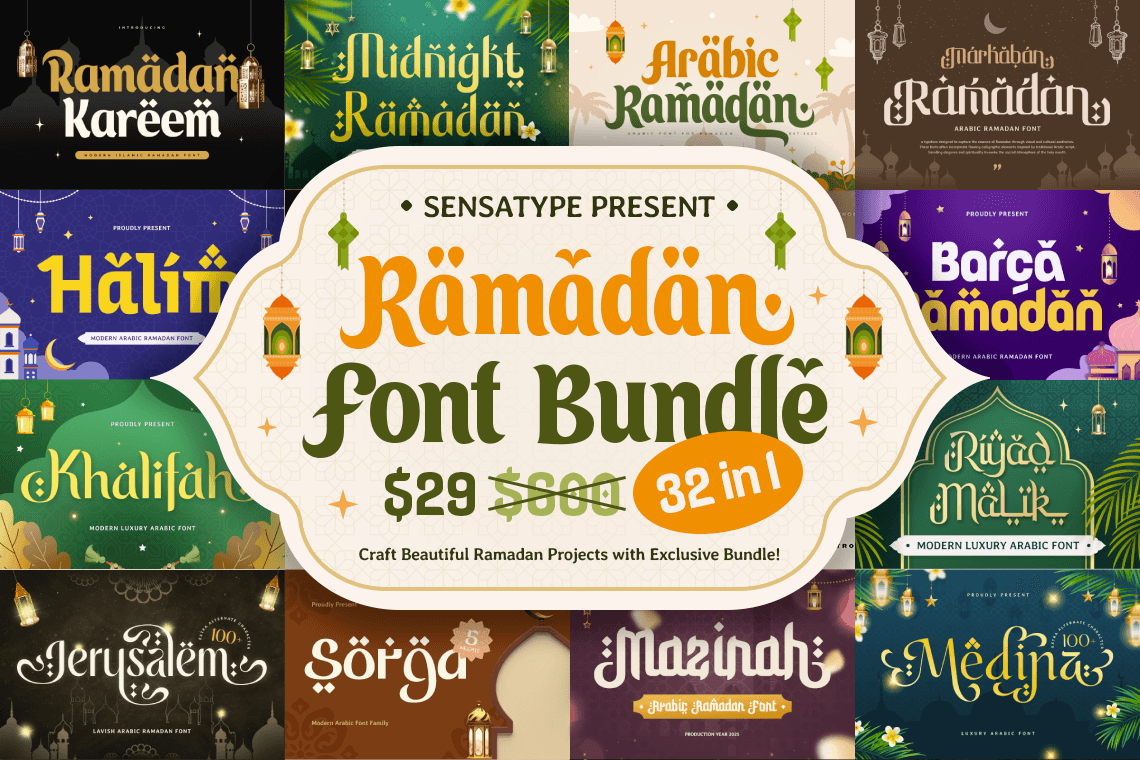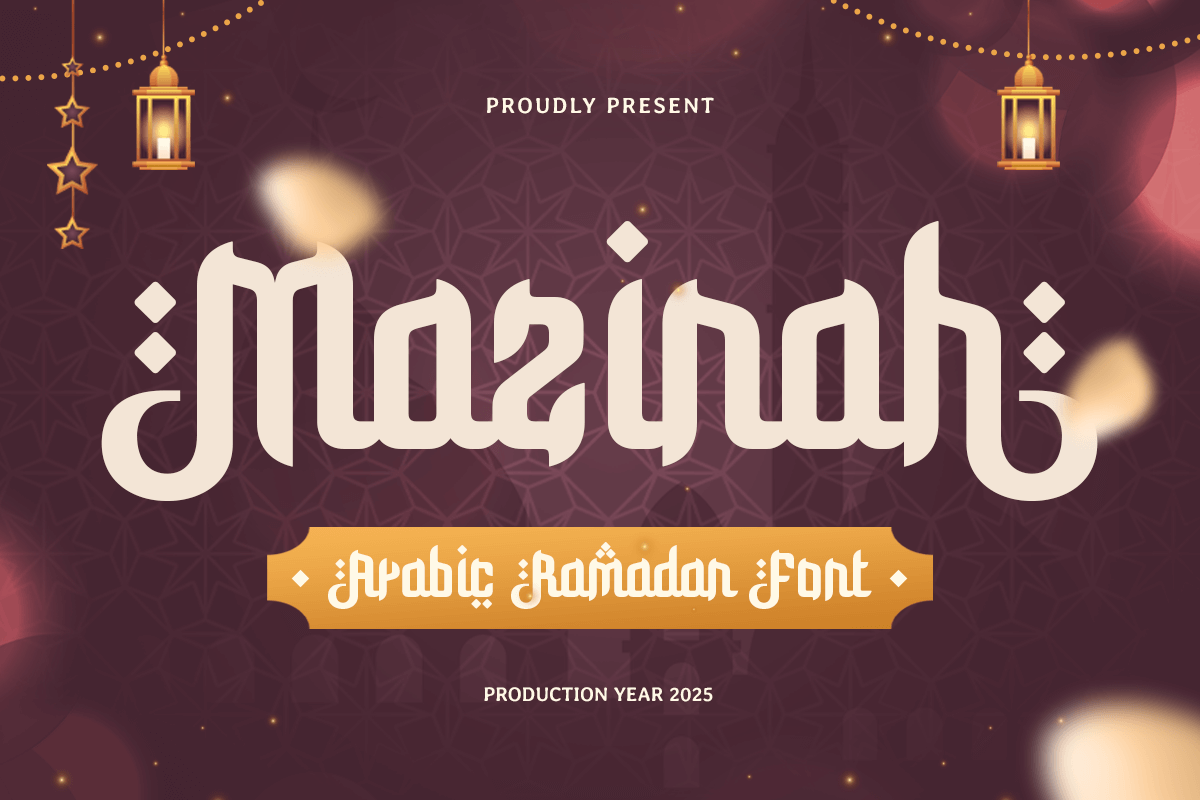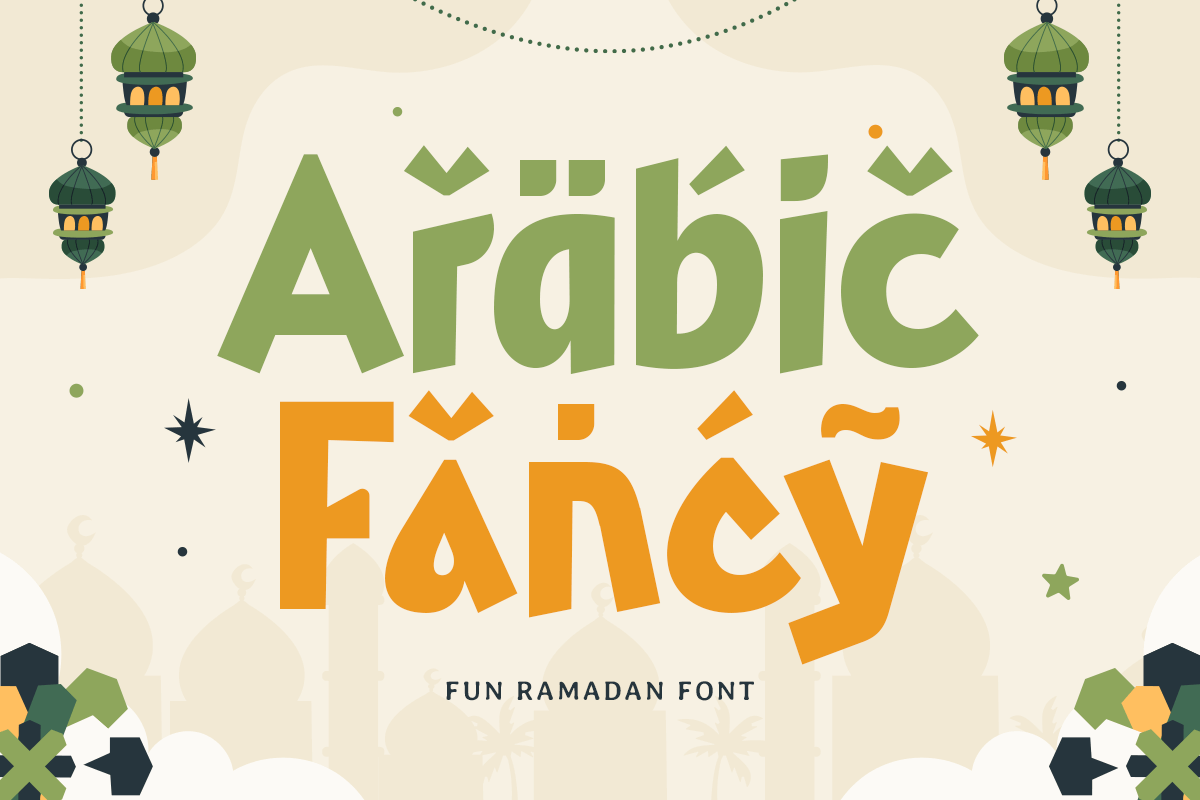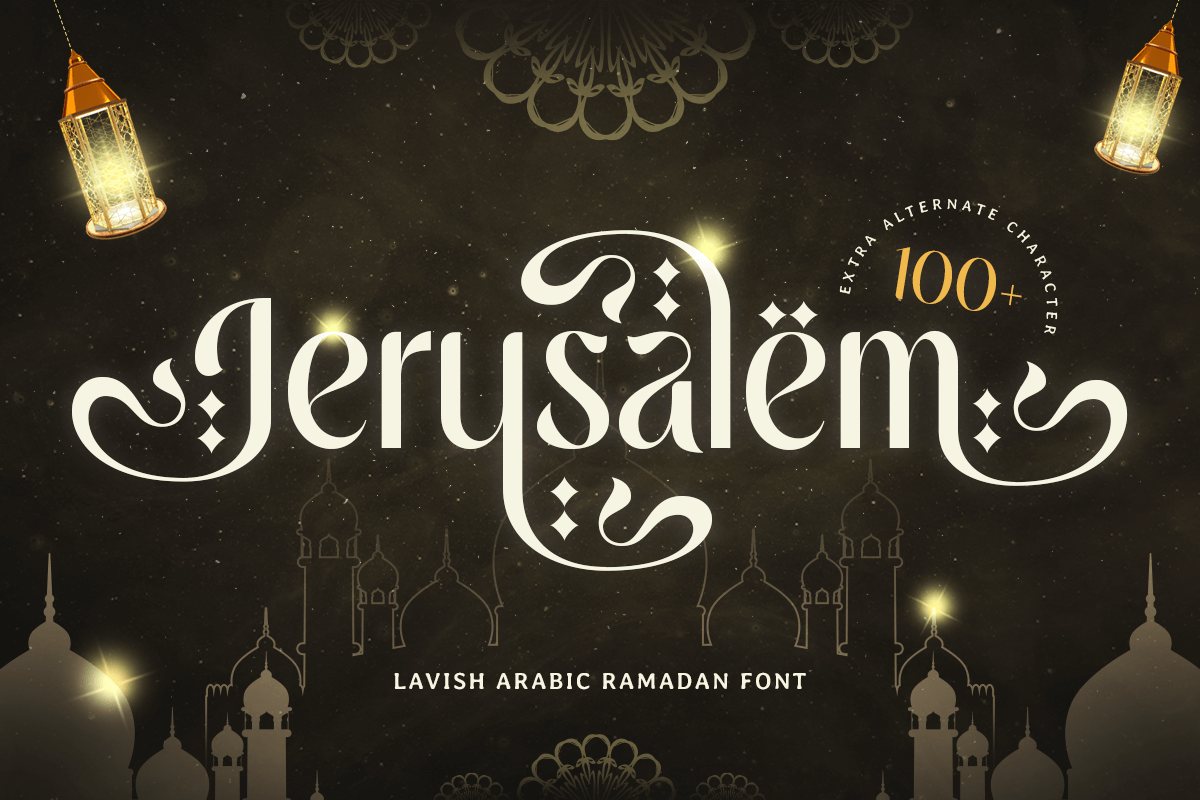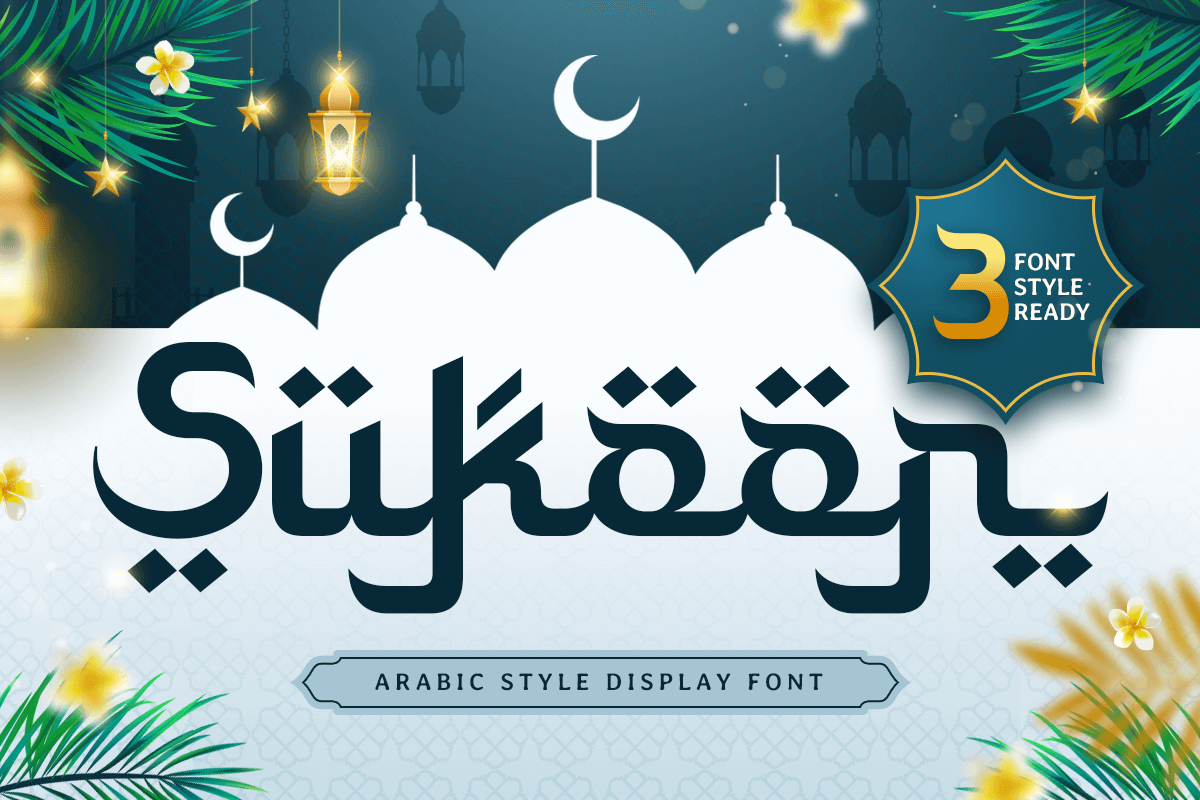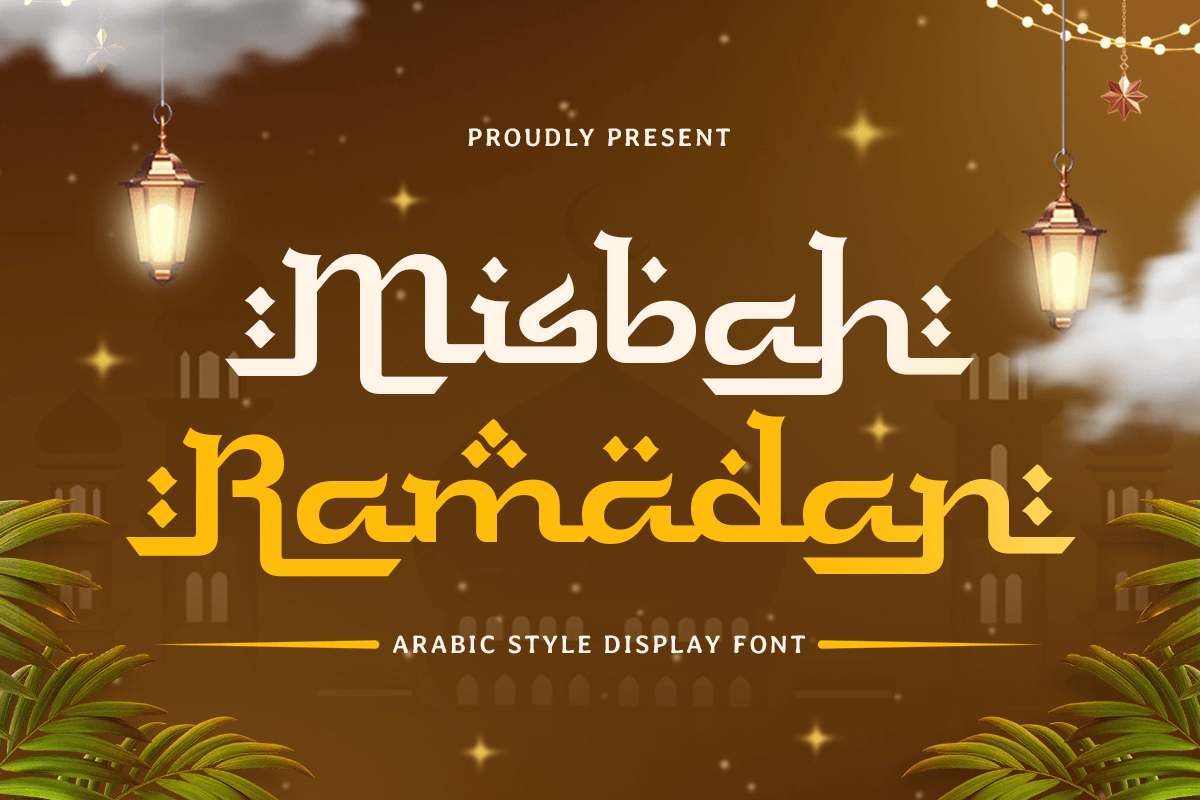
32 in 1 Arabic Ramadan Font Bundle
32 in 1 Ramadan Font Bundle – Bold Arabic Calligraphy & Stylish Ramadan Fonts for Logos, Eid Invitations, Crafts, Branding & Digital Design
Ready to bring an authentic vibe to your creative projects? This 32-in-1 Ramadan font bundle is exactly what you’ve been searching for. Whether it’s for Ramadan, Eid, or Ramadan-themed projects, these fonts give you a unique mix of cultural tradition and sleek modern design. Perfect for when you want your work to stand out and leave a lasting impression. 🌙✨
This bundle is a favorite among designers in the U.S. and Muslim countries because it delivers everything you need: from creating eye-catching branding and logos to designing stunning Eid cards or crafting social media posts that pop. These fonts don’t just look great—they feel meaningful. They’re designed to help you connect, inspire, and create with purpose.
Arabic Ramadan Font Bundle Features You’ll Love:
32 exclusive fonts with Ramadan and Ramadan-inspired styles—plenty of variety for every project
Works perfectly for invitations, branding, Eid cards, social media posts, and crafts
Designed for professional results—crisp, high-quality fonts that make every design shine
Why People Love This Arabic Ramadan Font Bundle:
This collection isn’t just about fonts—it’s about giving you tools that make your work easier and better. Whether you’re a seasoned pro or just starting out, these fonts take the stress out of designing. Imagine creating a logo that perfectly blends elegance and culture or an Eid invitation so beautiful that no one dares to throw it away.